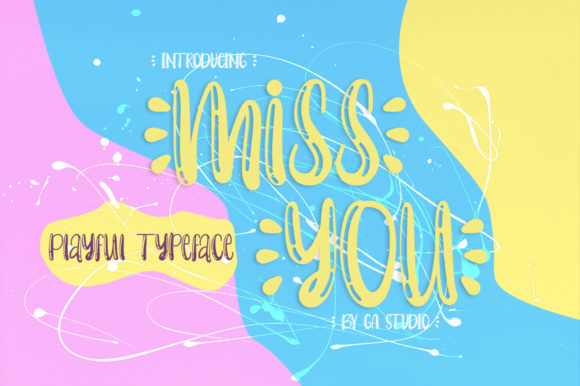
Embrace the playful charm of Miss You Font, an enchanting display font that exudes a joyous spirit! Dive into the world of creativity with this font, designed to make your designs radiate with personality. Whether you're creating eye-catching social media posts, crafting heartfelt invitations, or adding a touch of playfulness to your branding, Miss You Font is your ultimate companion.
Picture the smiles on your customers' faces as they encounter your designs adorned with Miss You Font. Its whimsical characters, full of character, will evoke a sense of joy and lightheartedness, leaving a lasting impression on every viewer.
More than just a font, Miss You is an expression of your unique style, a tool that empowers you to communicate your message with charisma and flair. Unleash your creativity and let your designs speak volumes, captivating audiences with every stroke of this playful font.
Make your designs stand out with Miss You Font, the font that adds a touch of magic to every project, sparking imaginations and leaving an indelible mark on your audience's minds. Don't let your designs be ordinary; infuse them with the vibrant personality of Miss You Font today!